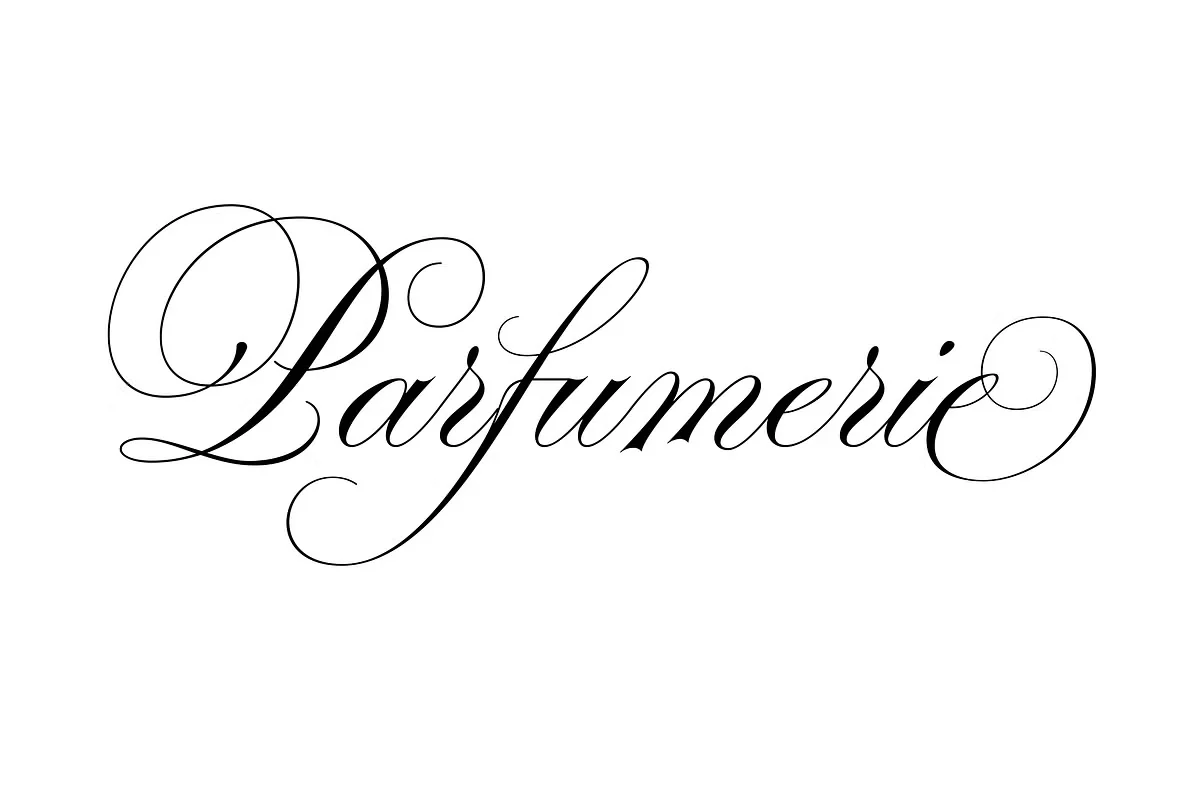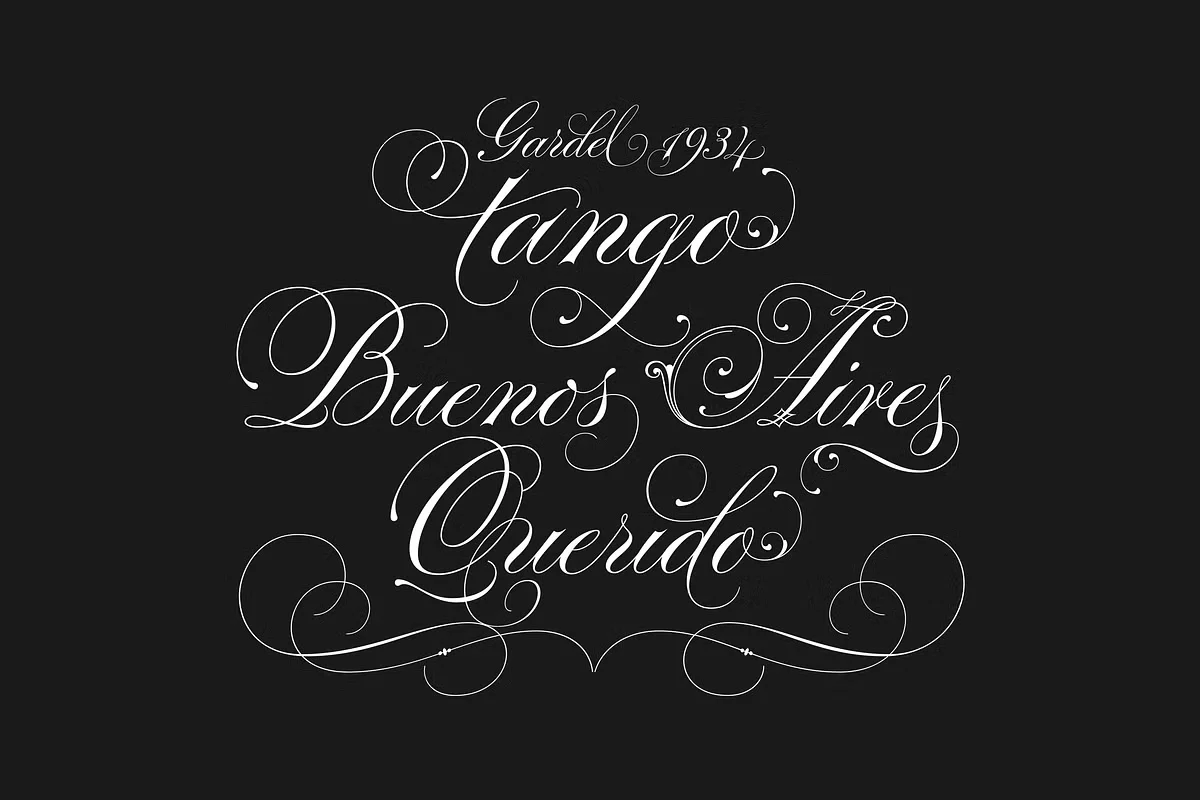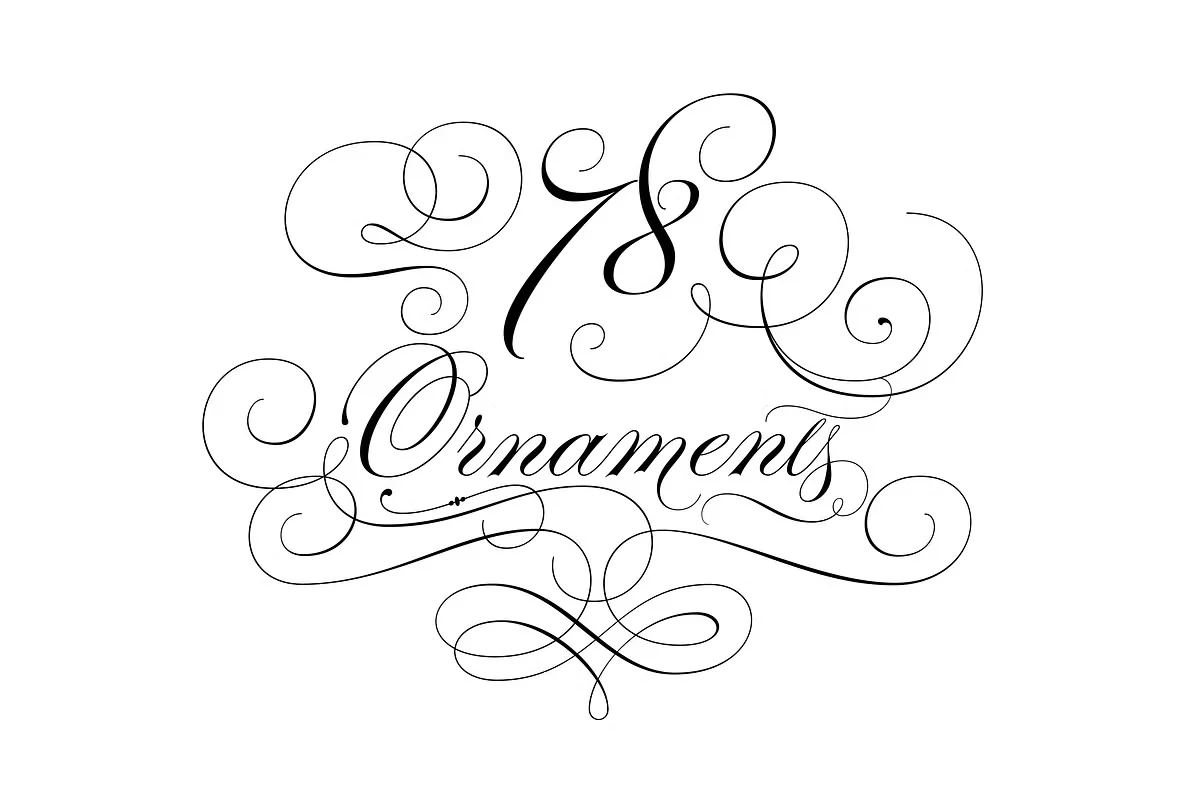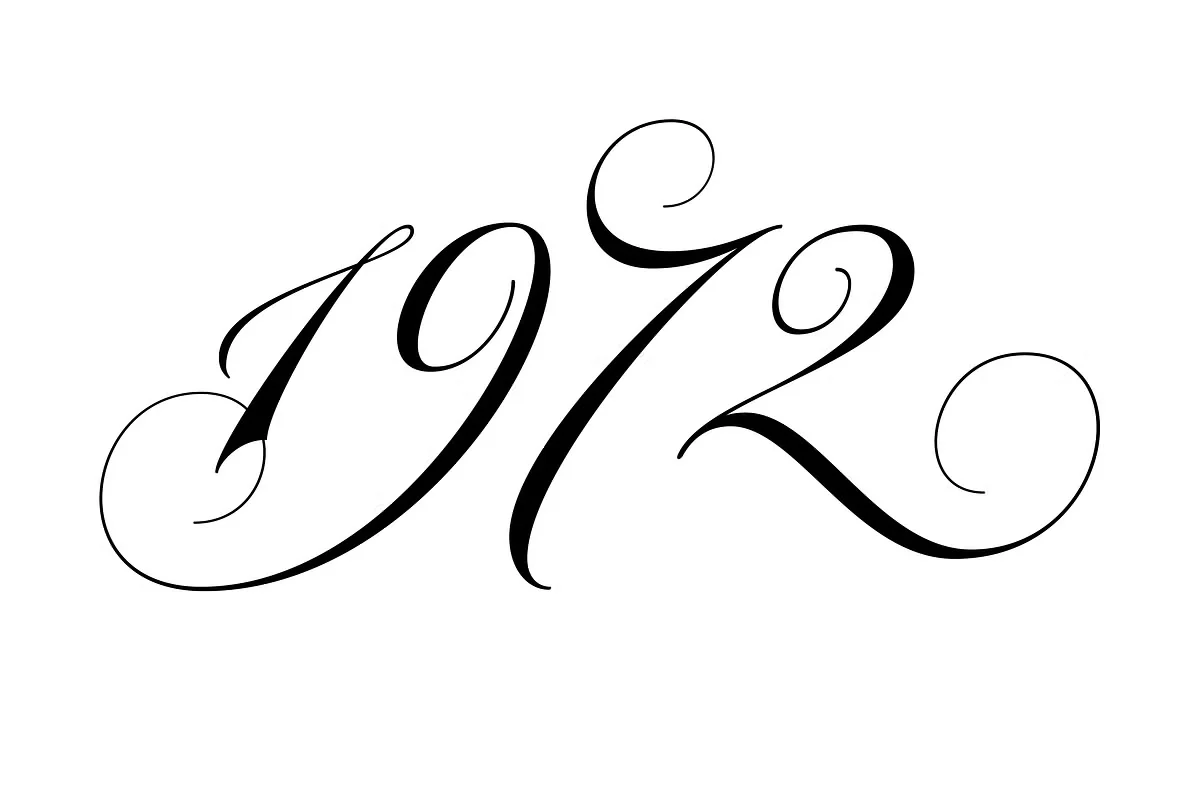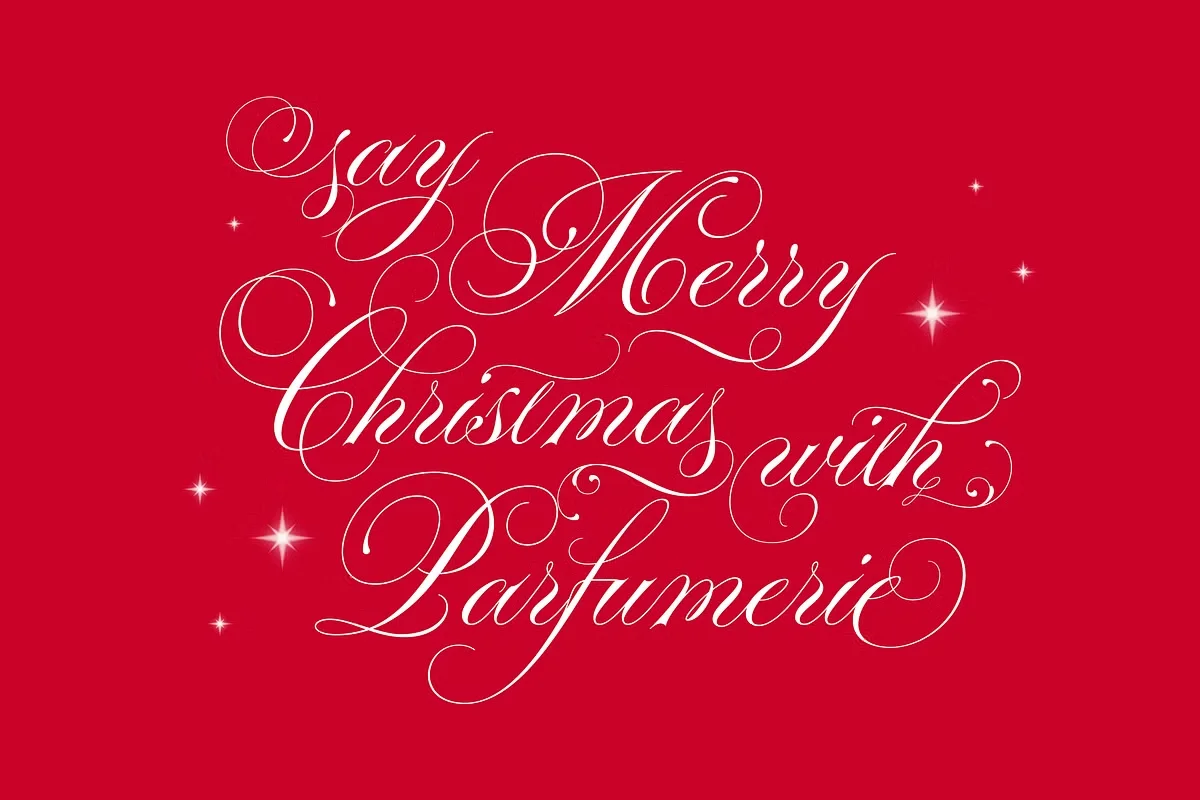
Parfumerie Script Font
About Parfumerie Script Font
I’m a typographer and graphic designer who loves fonts that bring character to branding. While working on a high-end packaging concept, I came across Parfumerie Script Font. It immediately caught my eye. The graceful lines and soft flow matched the elegance I needed. I found it during a deep dive into free font downloads for display-type styles and knew right away it was perfect. I’ve now used it in brand mockups, product labels, and a digital style guide. This font didn’t just fit, it elevated the whole presentation. That’s why I’m sharing this review. Fonts like this deserve the spotlight.
Parfumerie Script Pro is a refined script font designed by Typesenses. It’s known for its sophisticated calligraphic style, smooth strokes, and ornamental charm. Inspired by native decorative flourishes, especially those found in Buenos Aires, it blends classic calligraphy with modern digital precision. The font includes multiple formats like Parfumerie Script Regular Font and an advanced Pro version. The Pro contains over 2500 glyphs, including swashes, alternate characters, and beautiful ornament designs. The look is fluid and expressive, yet consistent in tone. Every curve feels intentional. Sabrina, the type designer behind this font, poured artistry into every detail. Whether viewed on the web or printed on luxury packaging, it holds its elegance.
What makes Parfumerie Script Font so special is its flexibility and depth. It’s not just a pretty font. It’s a typography set packed with thoughtful design features. The OpenType features allow for stylistic changes, letting you mix swashes, ornaments, and alternates into a single line of text. The font was clearly built for users who work with professional software that widely support advanced typography. The basic script form stands on its own, but when layered with extras, it turns into an art piece. Whether you’re using Adobe Photoshop or layout tools with OpenType access, you’ll notice how smooth everything flows. The font is defined by its smooth curves, refined strokes, and graceful shape. Its appearance may differ based on the selected letters, which means it feels personalized every time you type. It’s an ideal typeface for projects where the details matter. Everything from the glyphs to the decorative forms shows purpose. Even in minimalist layouts, this font adds a unique voice.
Where can you use this font?
Parfumerie Script Font works best in projects that call for elegance. Think luxury packaging, wedding invitations, boutique logos, or high-end product branding. Its ornamental form is native to decorative arts and it shows. I’ve used it on fragrance bottle mockups and styled quotes for social media. The results are always refined. This font lifts designs to higher levels of aesthetic beauty without overpowering the layout. If you pair it with clean imagery or minimal typographic layouts, it truly shines.
For digital use, the font appearance may differ slightly depending on which letters are selected, which is why using professional software that widely supports OpenType features is recommended. That way, you get full access to its 2500 plus glyphs. The swashes and alternate forms add movement and depth to your typography. It doesn’t just write words, it creates a look. Brands looking to be seen as graceful or premium will benefit the most. From typographic posters to script text headlines, this typeface adapts to many styles. It’s especially strong for personal brands or boutique studios. Once you discover the free Parfumerie Script Font, you’ll likely want to explore its full version for commercial use.